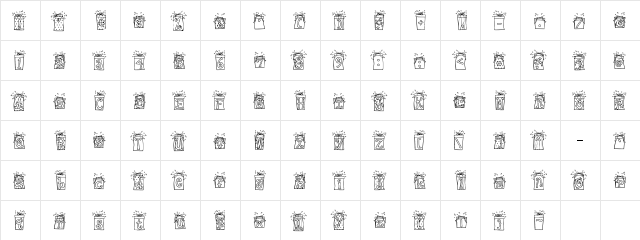
LDJ BirthdayGifts Regular
Design Context for LDJ BirthdayGifts Typeface
LDJ BirthdayGifts is a composed and adaptable typeface that performs quietly and consistently across a wide range of design contexts.